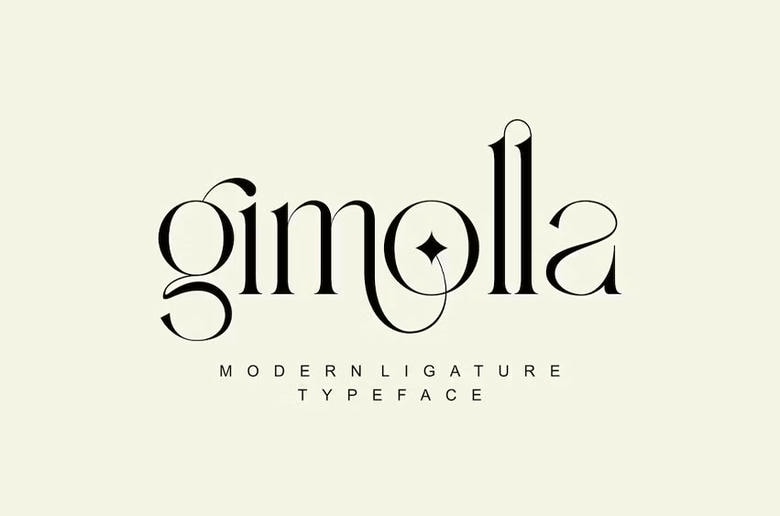
Gimolla Font
Gimolla is great serif font which has the appearance of traditional design with the addition of modern features. It has smooth, curvy line and stylish appearance that is ideal for designs which require style. It makes the project neater and professional when used on headings, invitations, or branding, all thanks to Grintte.
Gimolla Serif Font